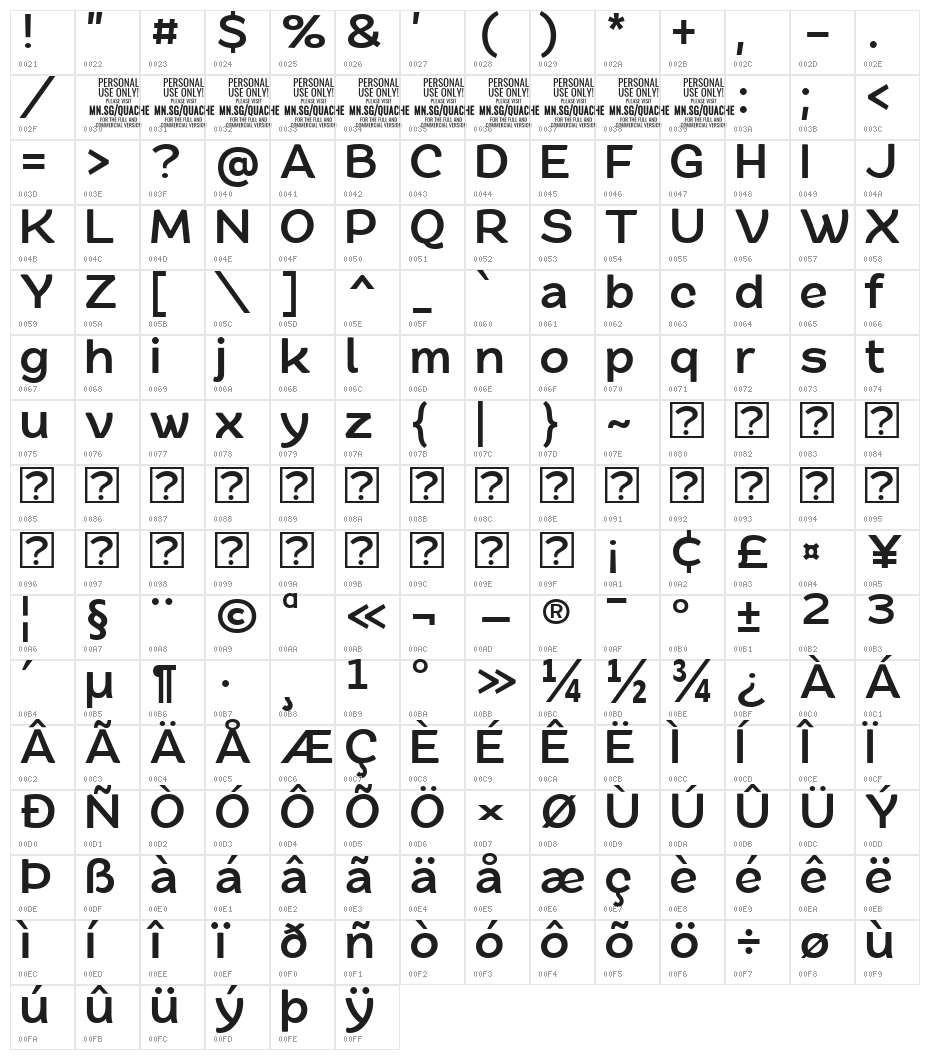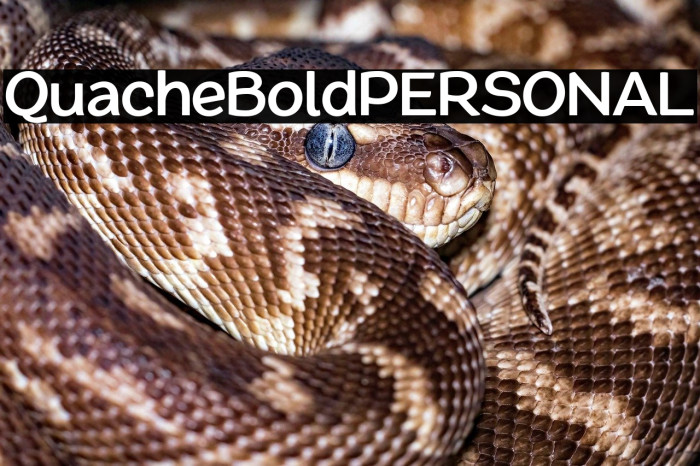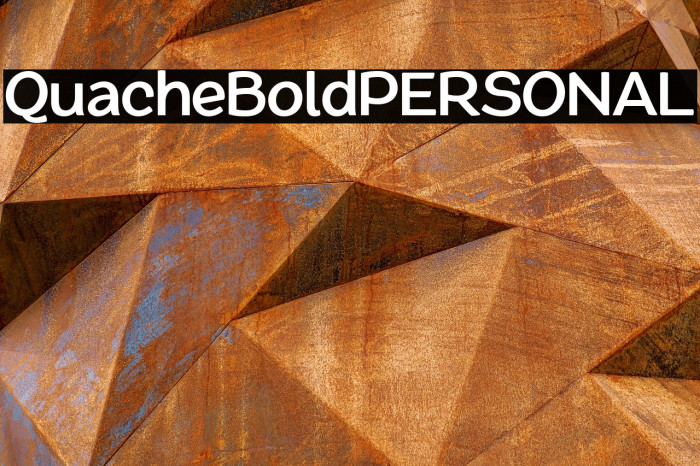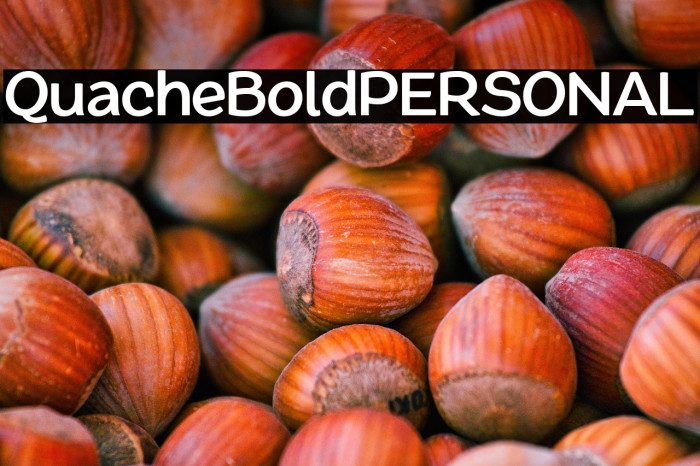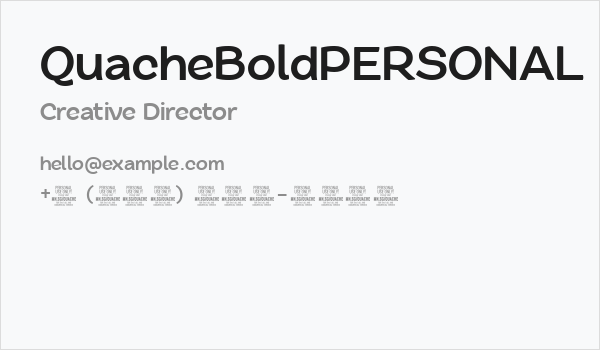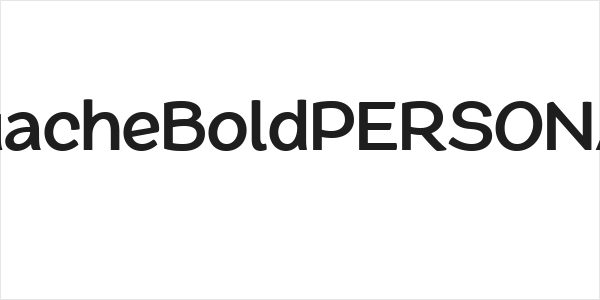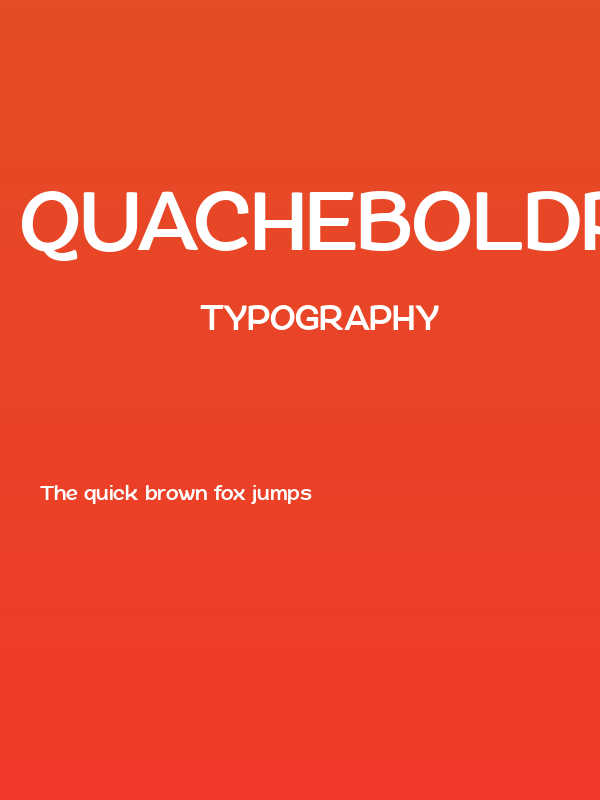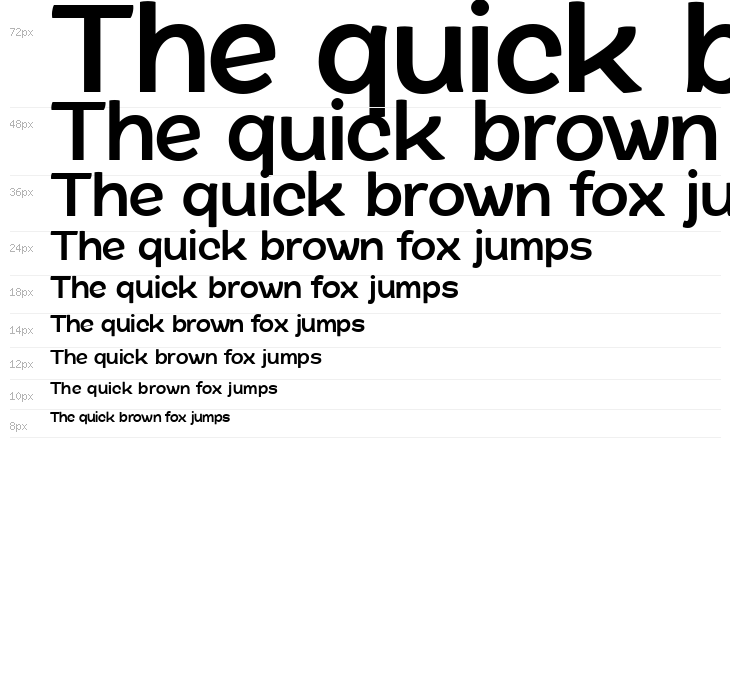
QuacheBoldPERSONAL Font
QuacheBoldPERSONAL Description
This font exhibits a bold and modern sans-serif style, characterized by clean lines and a uniform stroke width. The uppercase and lowercase letters maintain a consistent height, creating a harmonious and balanced appearance. The characters are well-defined with a slightly rounded finish, enhancing readability and giving a friendly yet professional look. The numerals and special characters are designed to match the overall aesthetic, ensuring a cohesive visual experience. This font is versatile, suitable for various design applications where clarity and impact are essential.
| Proposed Projects | Ideal for branding, advertising, headlines, and digital interfaces where a modern and impactful look is desired. |